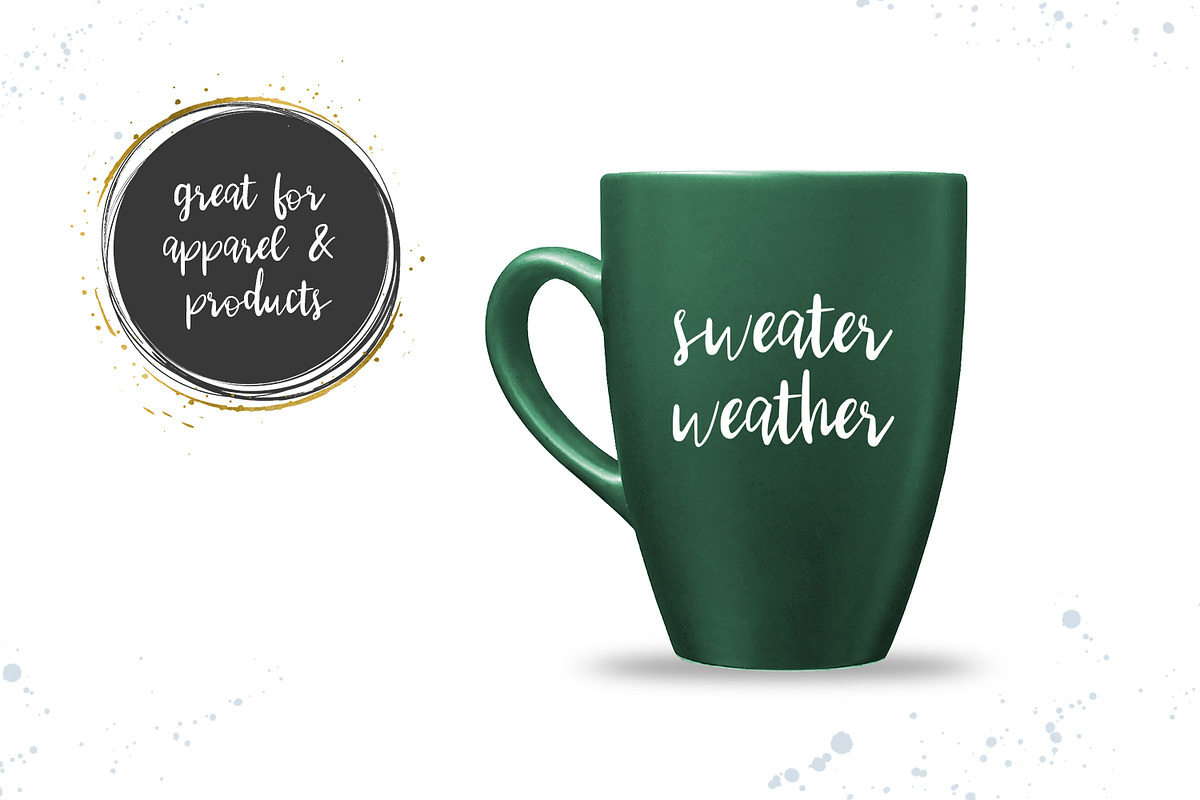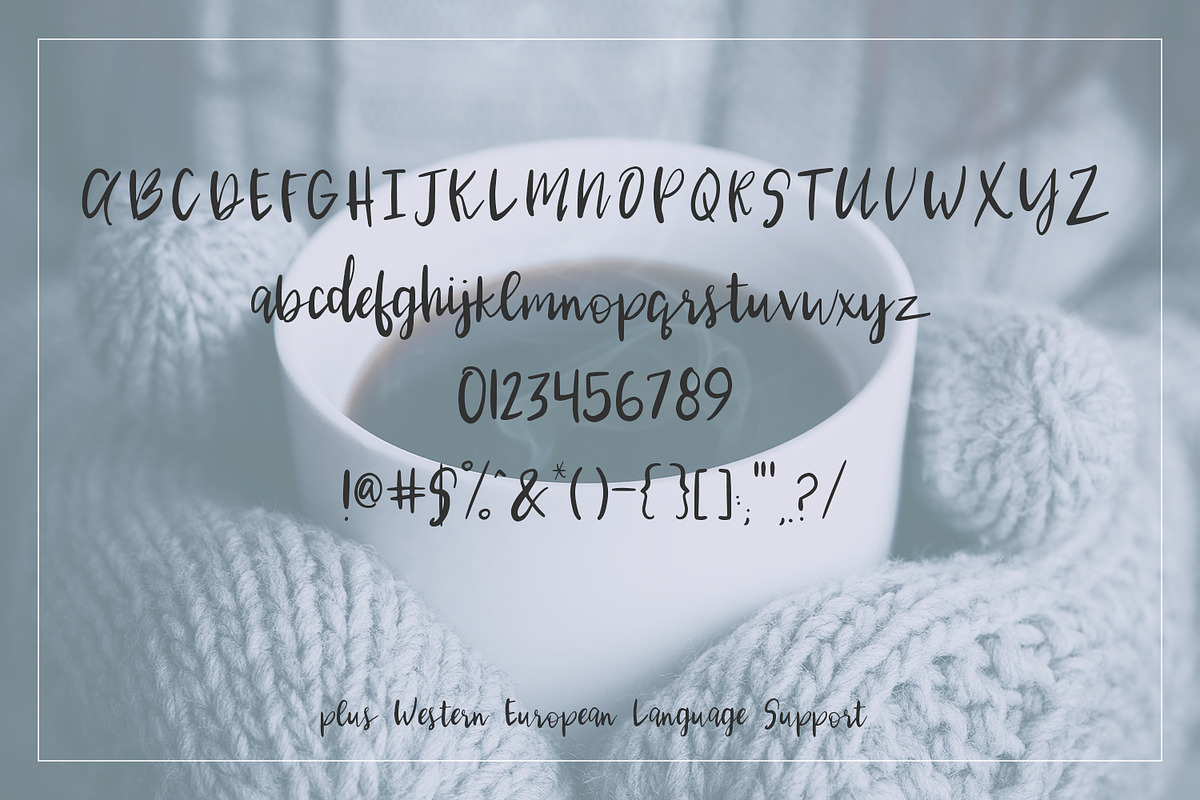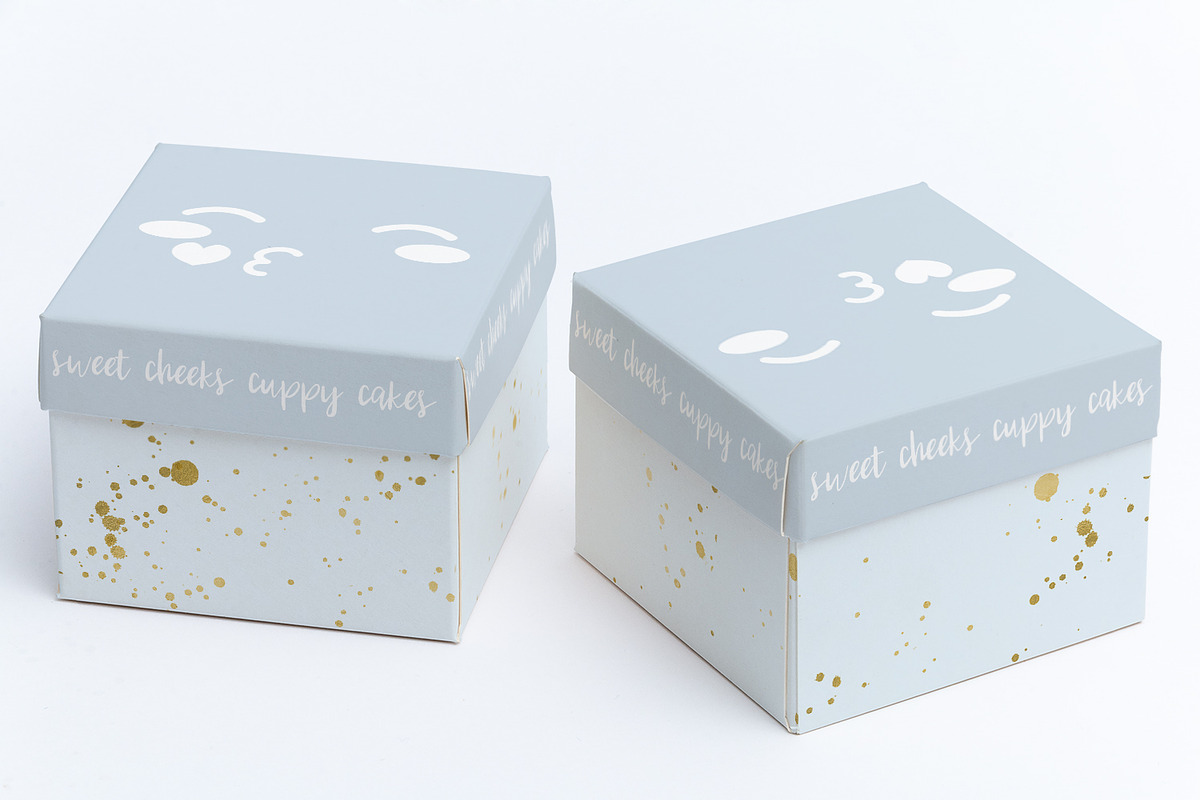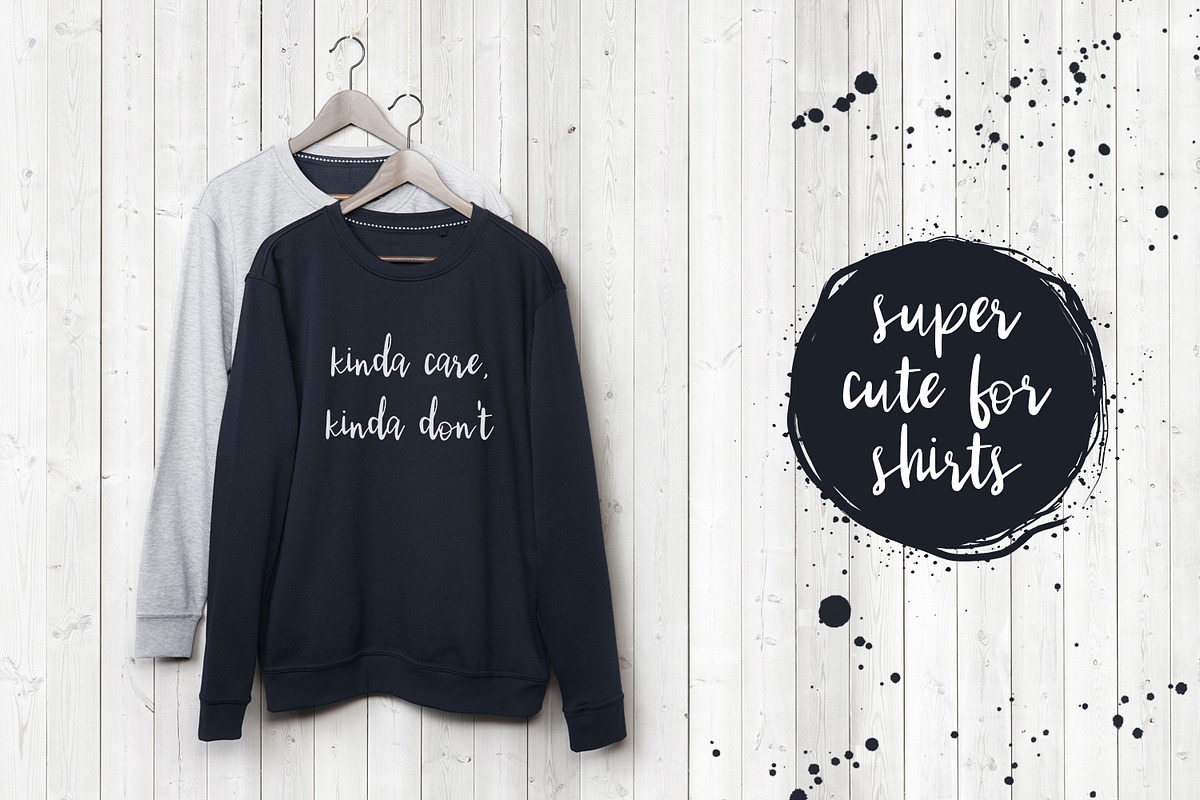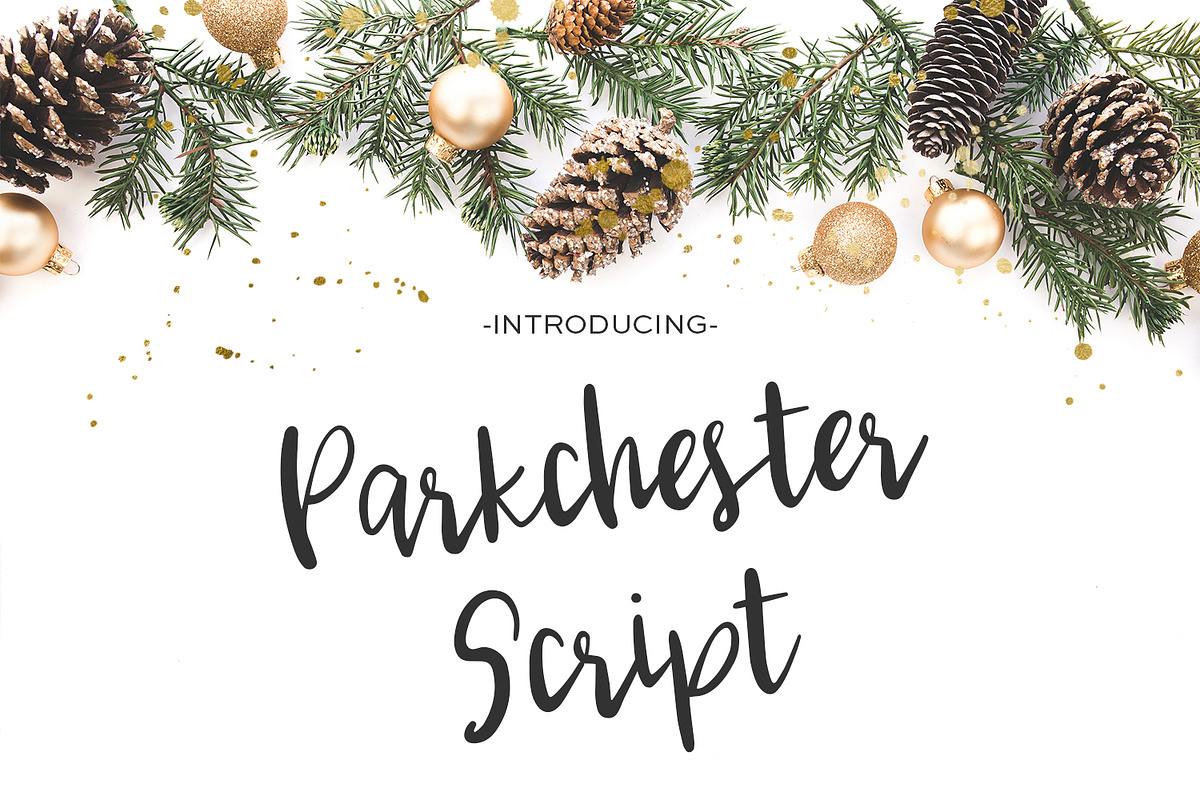
Parkchester Script
Parkchester Script is my 2017 Holiday release, inspired by the cutest neighborhood ever in Florida with an epic Christmas light display, & a Santa that passed out candy canes. Parkchester Script is a happy, joyful script…and despite its holiday release is perfect all year round for logo & branding projects, t-shirt & other apparel designs, & more.
Parkchester features European language support!